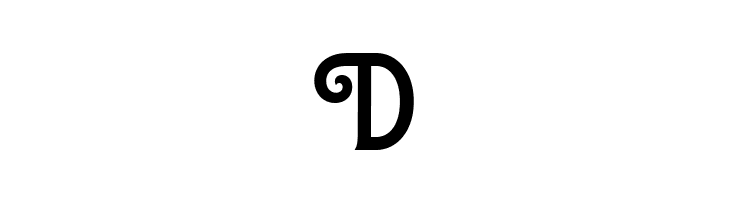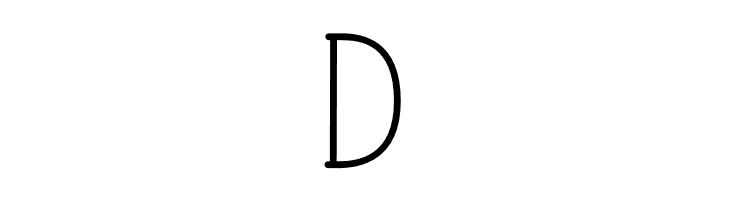
( Gartype Studio )
A bold, decorative font with unique uppercase flair and consistent lowercase design.
( Graphics Bam - Benjamin Melville - www.creativefabrica.com/ref/186/ )
A bold, vintage-style font with distressed uppercase letters in block format.
( Haksen Letters - Sarwo Edhi Prayitno )
A cursive, handwritten font with bold, expressive uppercase letters and fluid lowercase characters.
( Haksen Letters - Sarwo Edhi Prayitno )
A playful and elegant script font with bold, flowing uppercase and smooth, handwritten lowercase letters.
( Hanoded - David Kerkhoff - www.hanodedfonts.com )
An elegant, flowing script font with ornate uppercase and smooth lowercase letters.
A bold, 3D geometric font with a retro arcade style.
( Ilham Herry - ilhamherry.com )
A decorative and bold font with ornate uppercase and straightforward lowercase letters.
( Indriyanti )
An elegant script font with flowing, cursive strokes and ornate uppercase letters.
( JBFoundry - Jean Boyault - jean.boyault.pagesperso-orange.fr/ )
A versatile font combining clean uppercase letters with playful, handwritten lowercase characters.
( K-Type - Keith Bates - www.k-type.com/ )
A classic serif font with bold uppercase and harmonious lowercase letters.